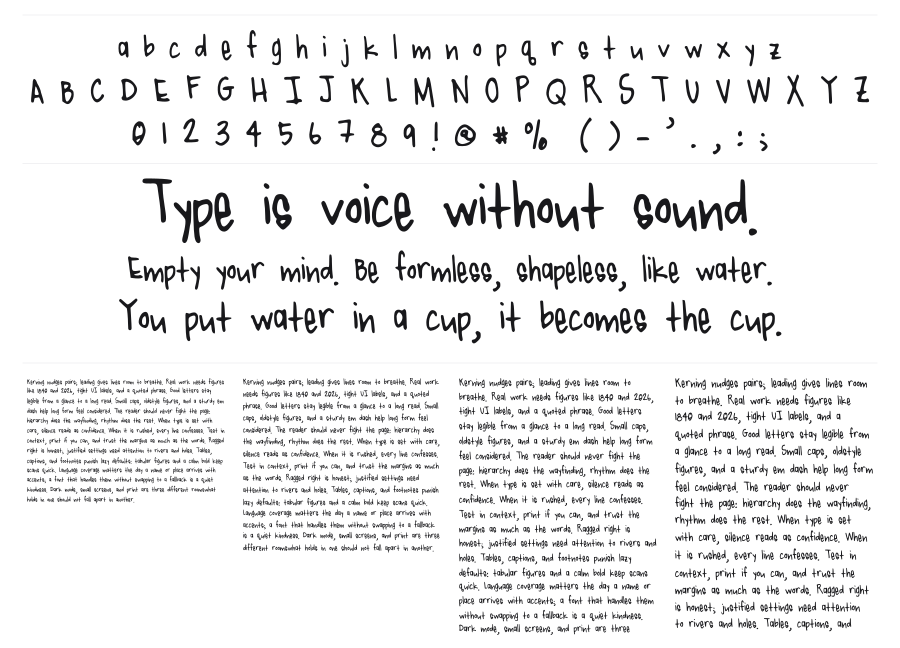
Edito mi hijo
Edito mi hijo is a bold, marker-style handwritten face from jude 22 with loose, slightly uneven letterforms that feel spontaneous and unfiltered. The strokes are thick and confident, carrying a playful, quirky energy that works well for headlines, posters, and informal branding where you want something that reads as genuinely hand-lettered rather than digitally smoothed.